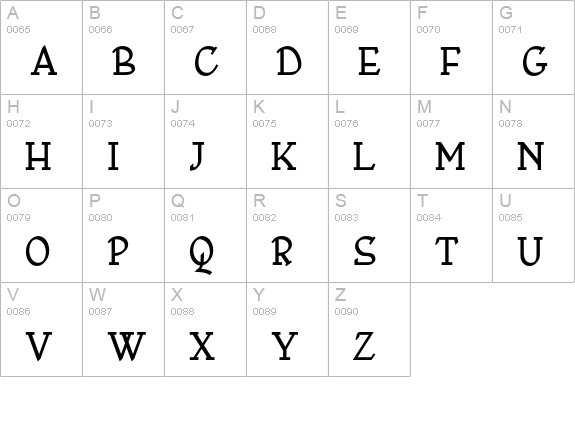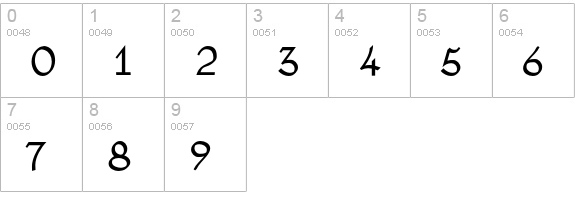
NympheBold Font Details
Introducing NympheBold, a stunning and versatile font that exudes elegance and sophistication. With its bold and eye-catching design, NympheBold is sure to make a statement in any project. This font is perfect for adding a touch of luxury to your design work, whether it be for branding, advertising, invitations, or any other creative project. What sets NympheBold apart is its unique combination of classic charm and modern flair. The clean lines and sharp angles of this font give it a contemporary edge, while the bold weight adds a sense of strength and power. Whether you're looking to make a bold statement or simply want to add a touch of sophistication to your work, NympheBold is the perfect choice. And the best part? NympheBold is completely free to download at FontsMarket.com. That's right, you can get your hands on this beautiful font without spending a dime. So why wait? Download NympheBold today and take your design projects to the next level with this stunning and versatile font.